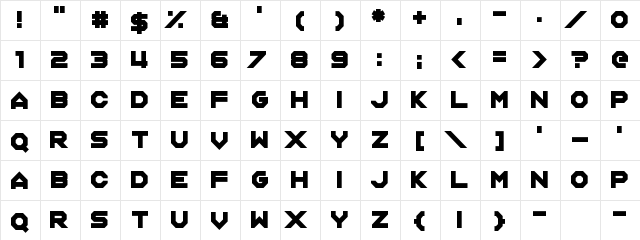
Knockout Punch Regular
Design Context for Knockout Punch Typeface
Knockout Punch is a composed and adaptable typeface that performs quietly and consistently across a wide range of design contexts.
Pro Tip: Pair Knockout Punch with a font of contrasting weight or personality to build a more expressive typographic hierarchy.